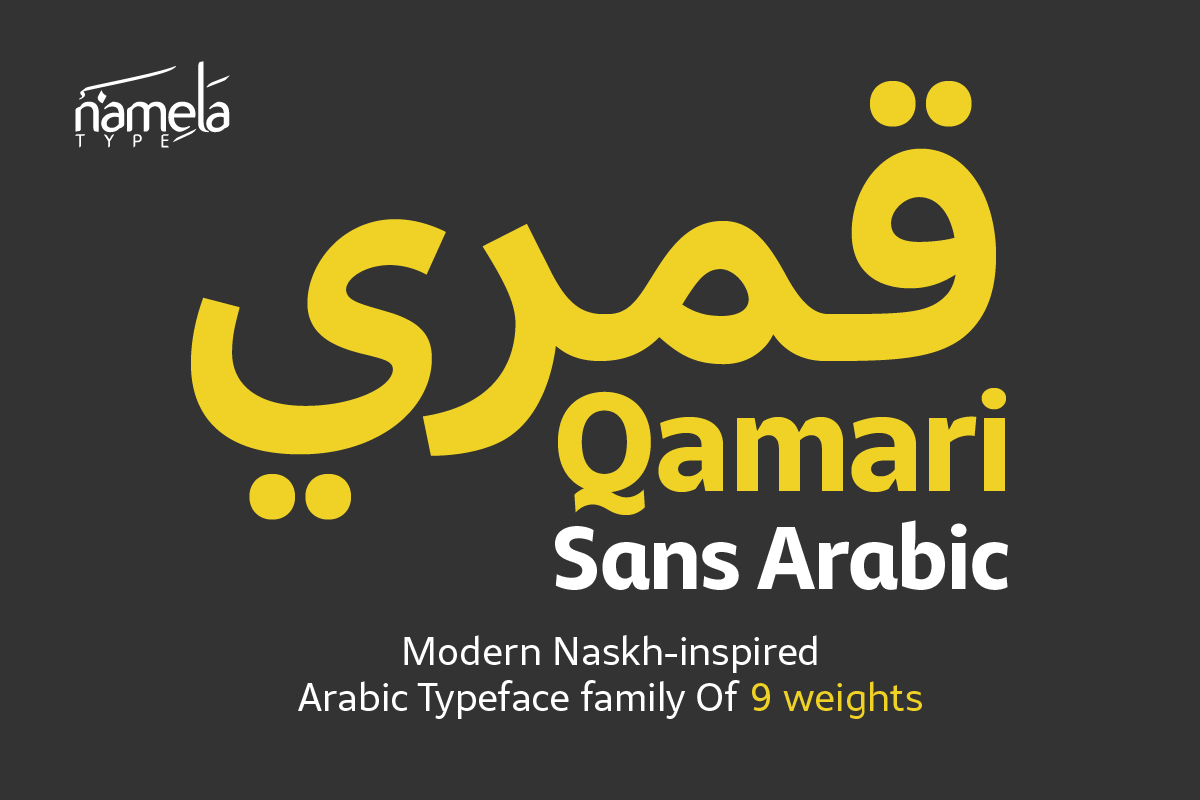
Qamari Sans Arabic Regular
Qamari Sans Arabic Font - A Modern Naskh-inspired Typeface for Editorial & Apps Designing a contemporary Arabic typeface is never simple. It demands a deep understanding of historical forms, cultural nuance, and modern usability. Qamari Sans approaches this challenge by placing the Arabic script at its core—reinterpreting classical influences through a clean, modern lens. Developed by Namelatype, Qamari Sans Arabic Modern Naskh-inspired Font offers a refined and highly functional Arabic font.